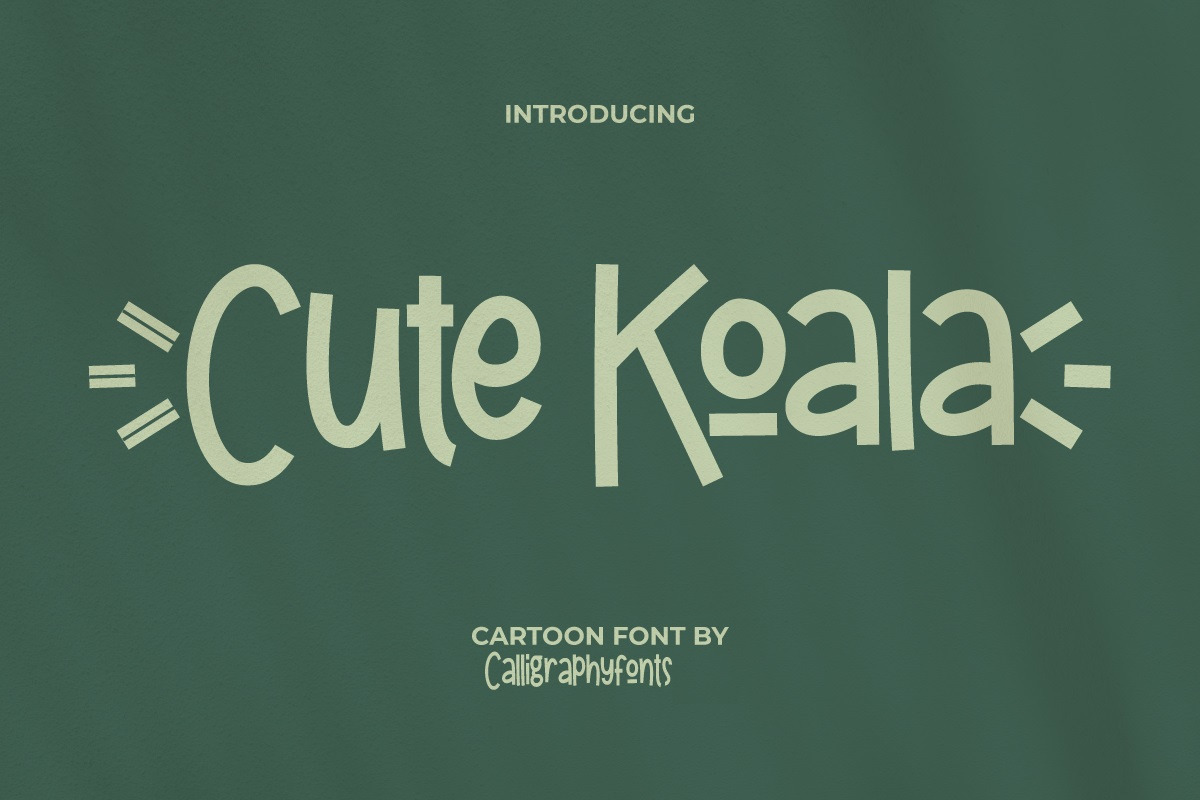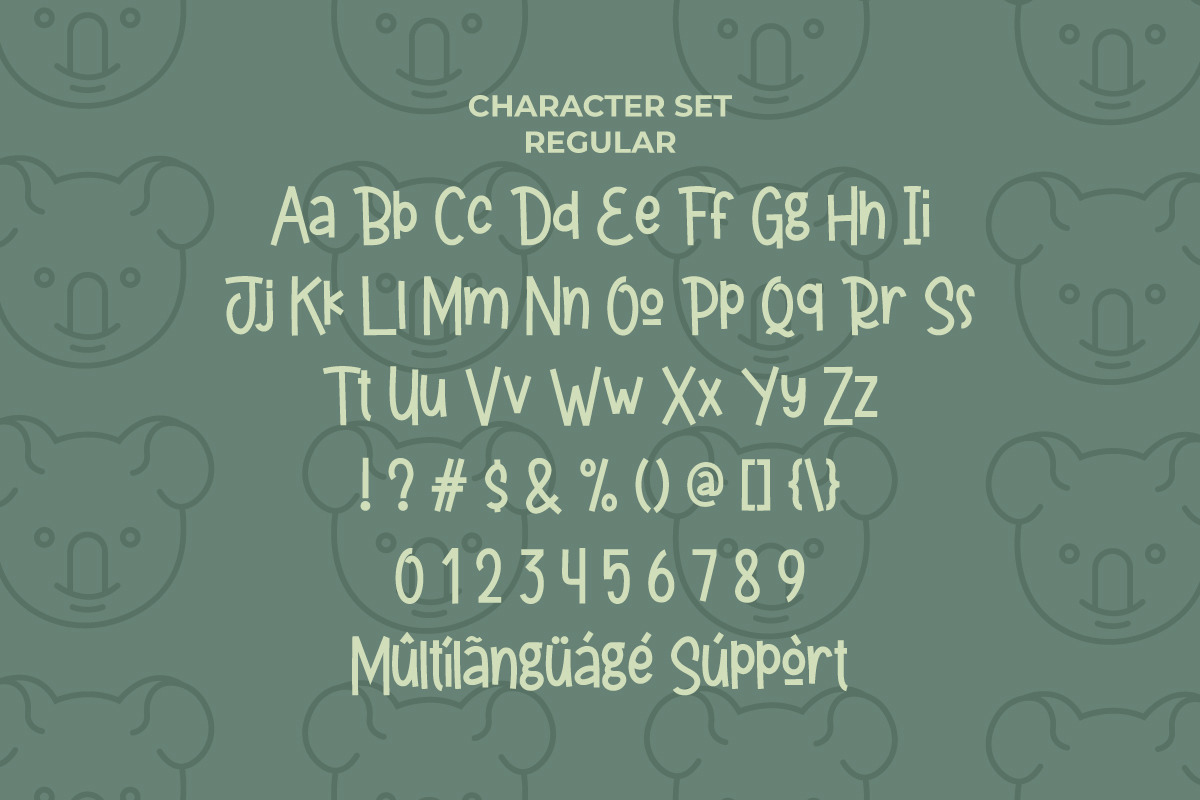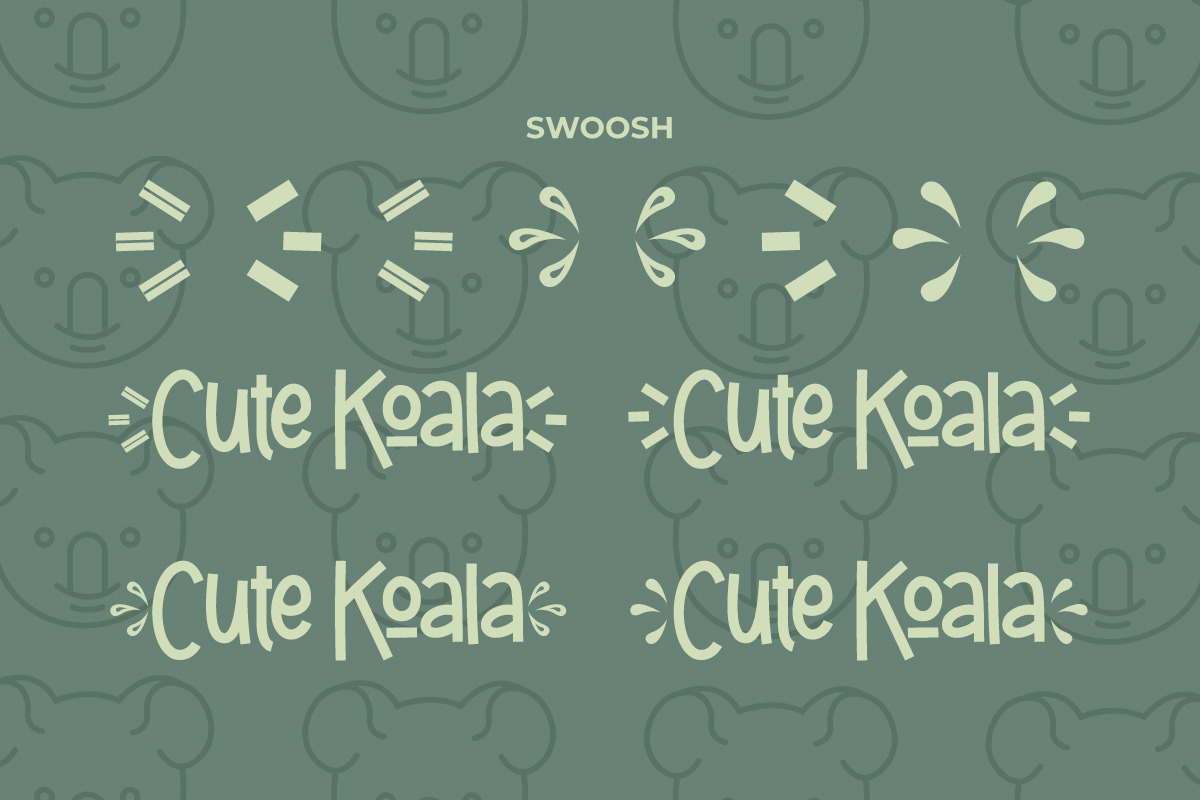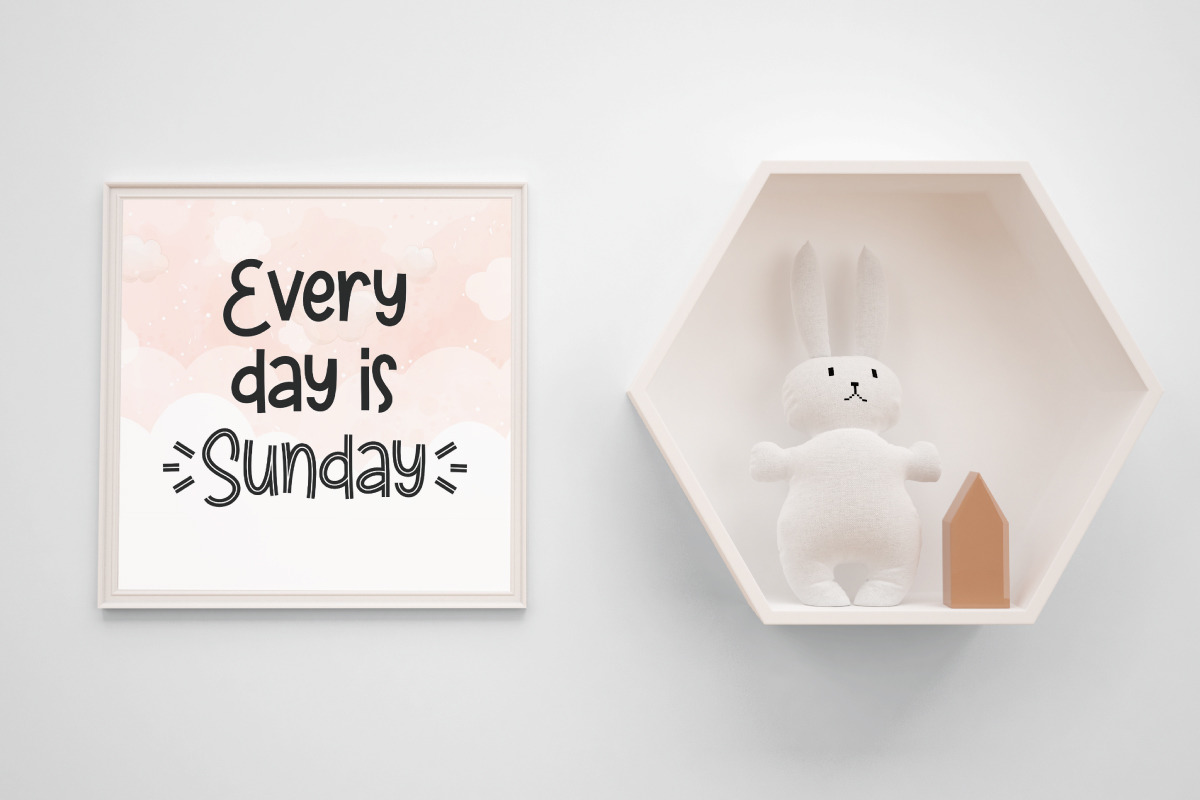
Cute Koala Cartoon Display Font
Cute Koala Font is a cartoon display font. This handmade font has a simple, unique and stylish cartoon style. Great for logo branding, lettering, products packaging, signage, title etc. Cute Koala Font is a cute cartoon with two style, regular and inline. The font will be awesome for many industries including : fashion, kids, school, writers and many more!